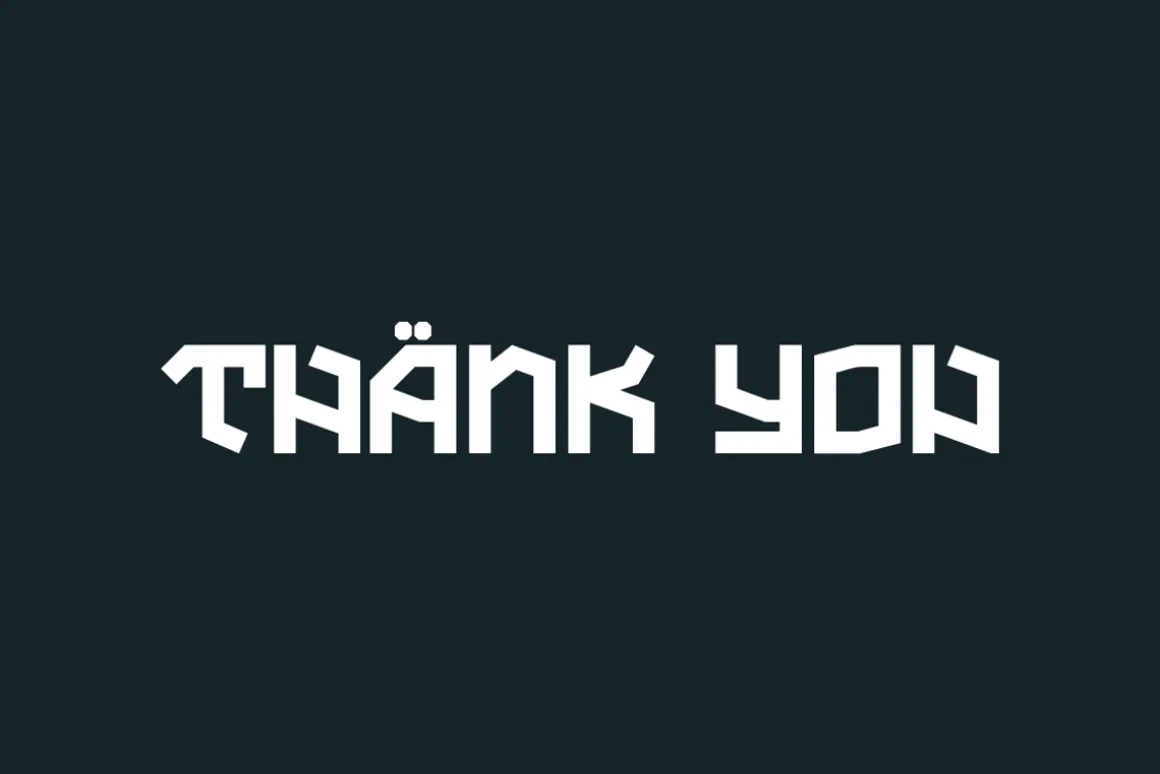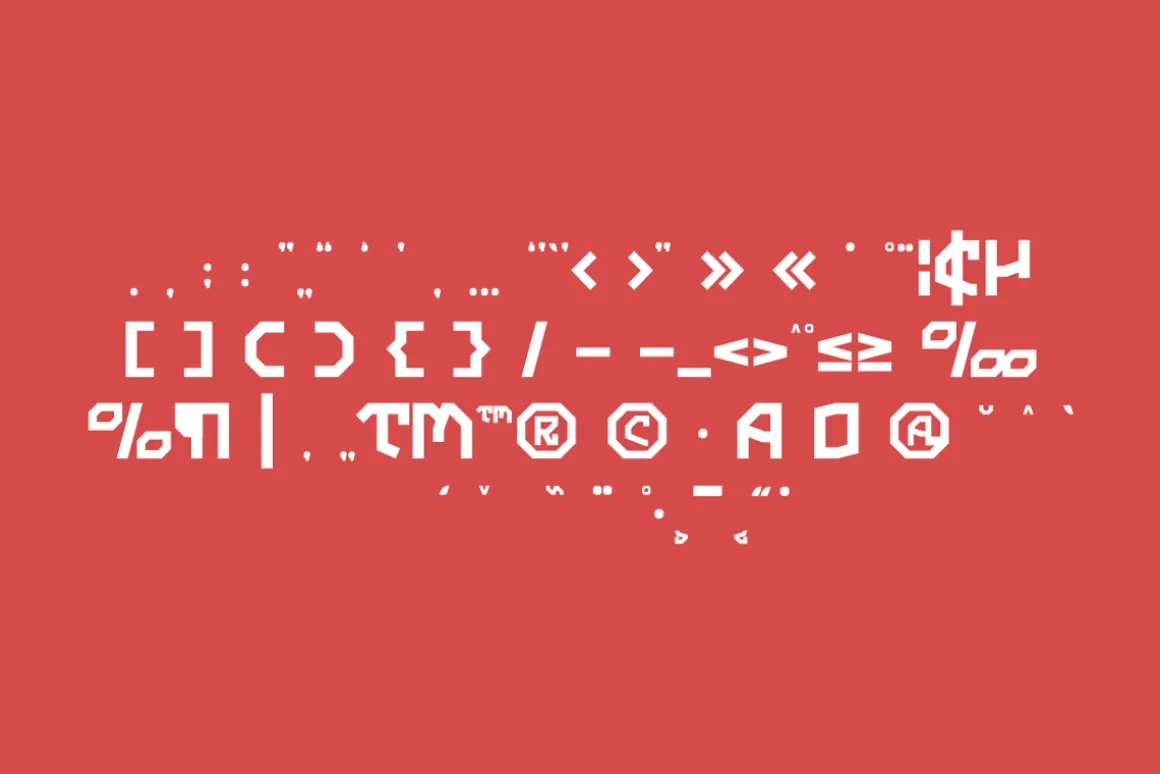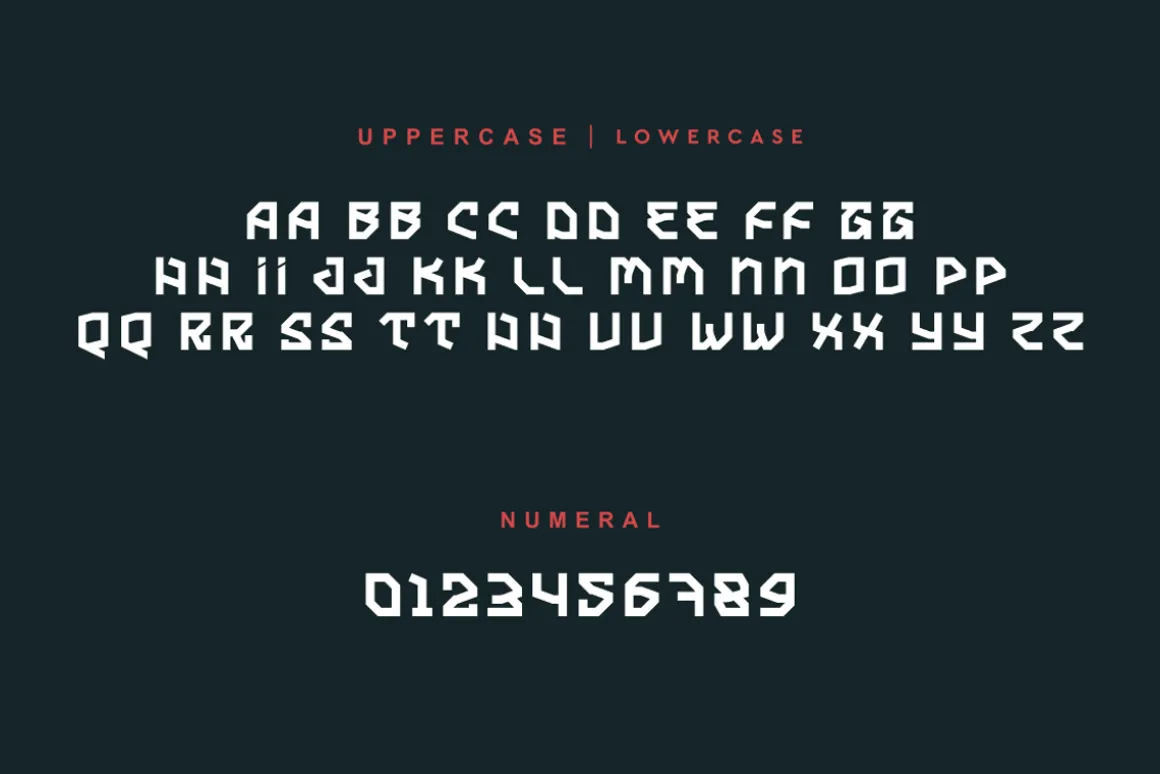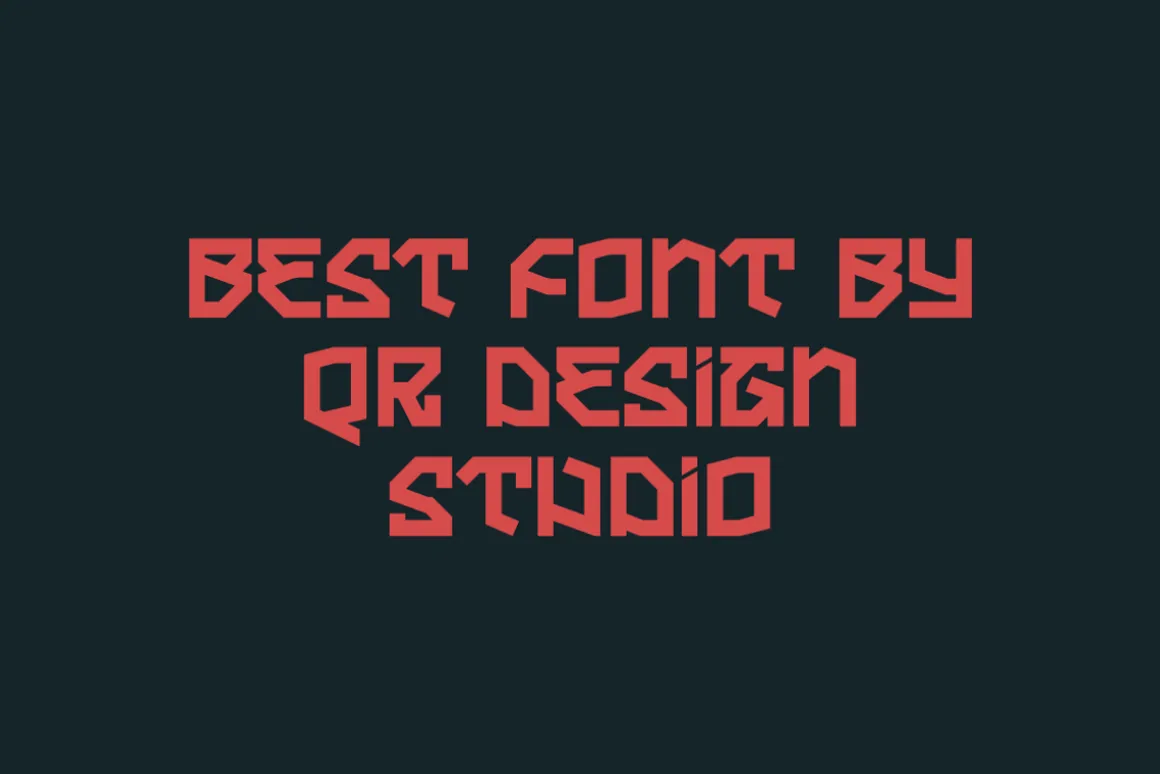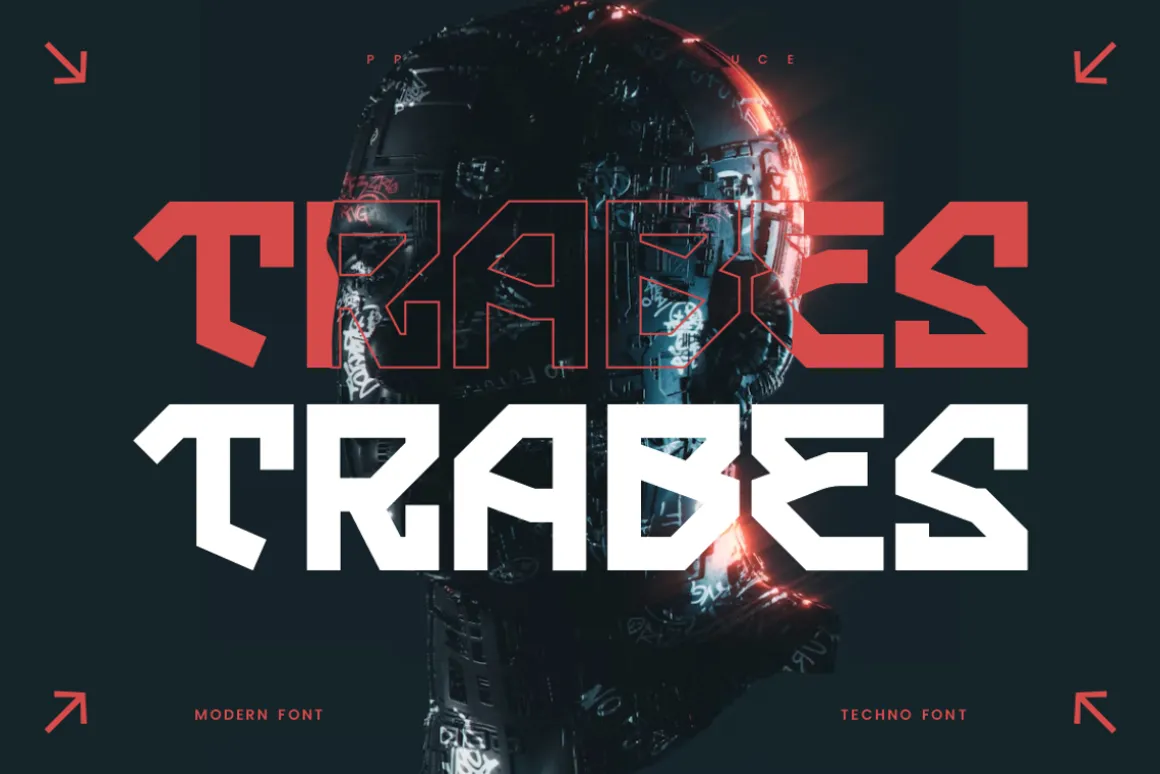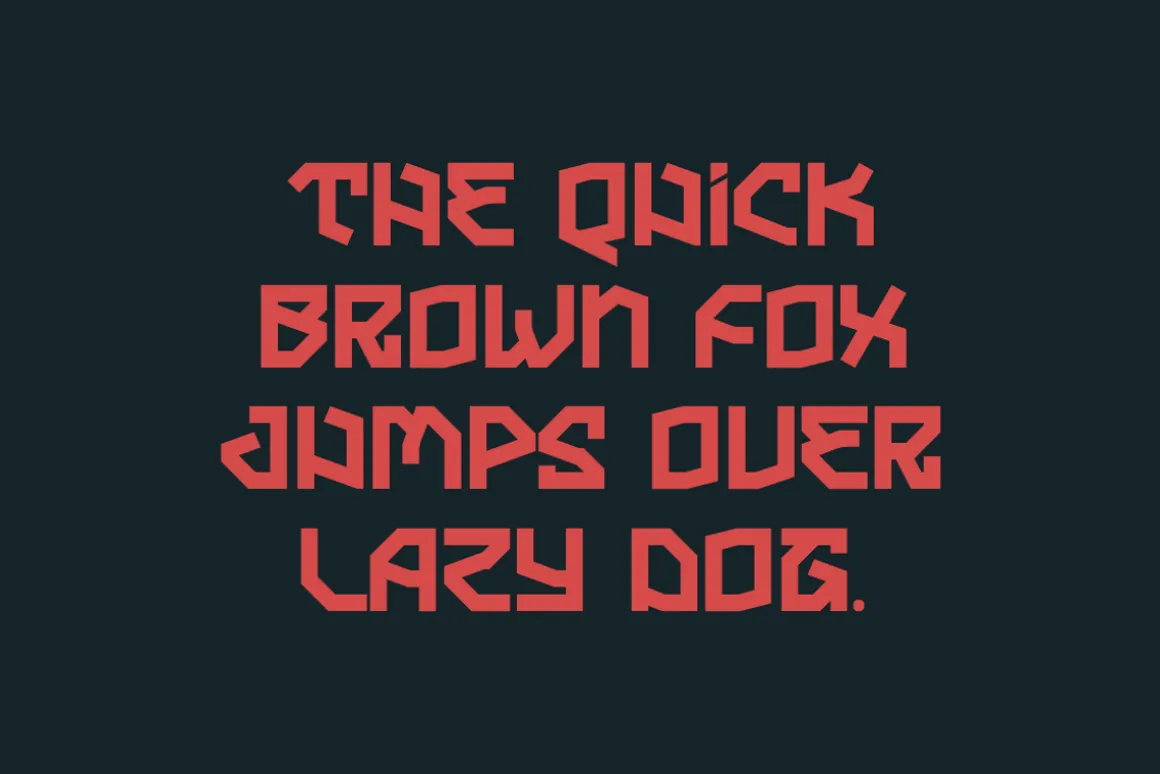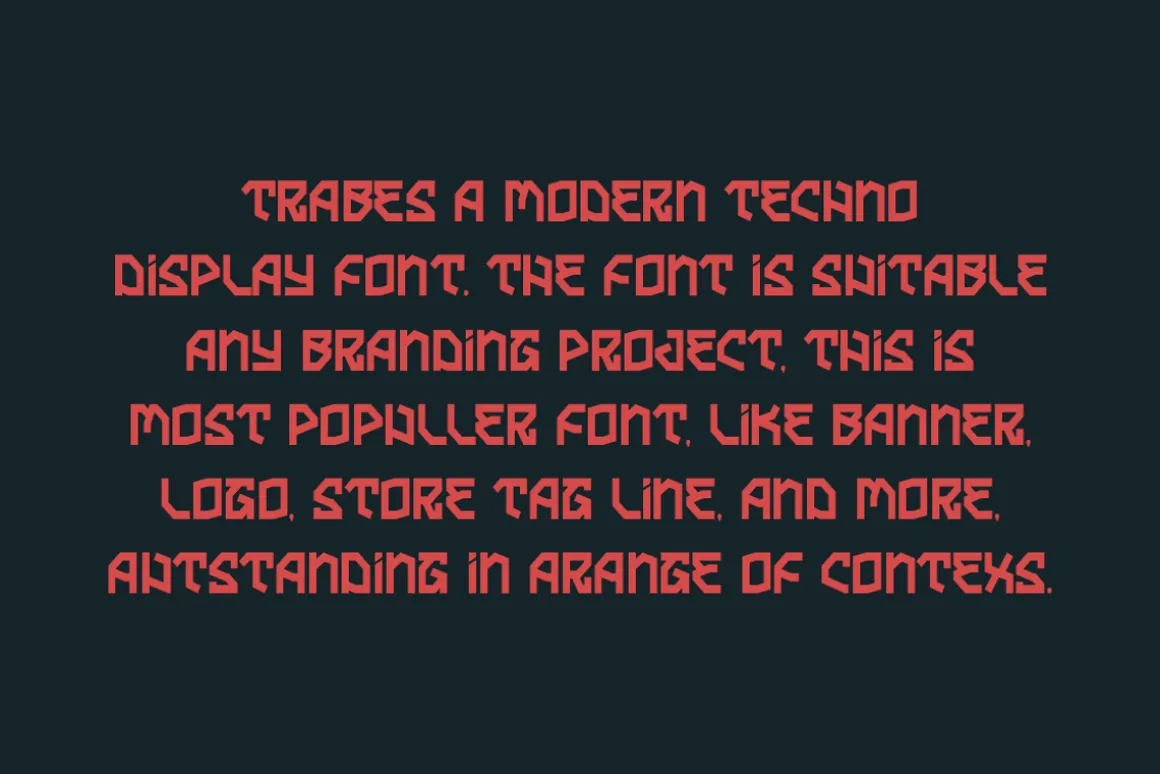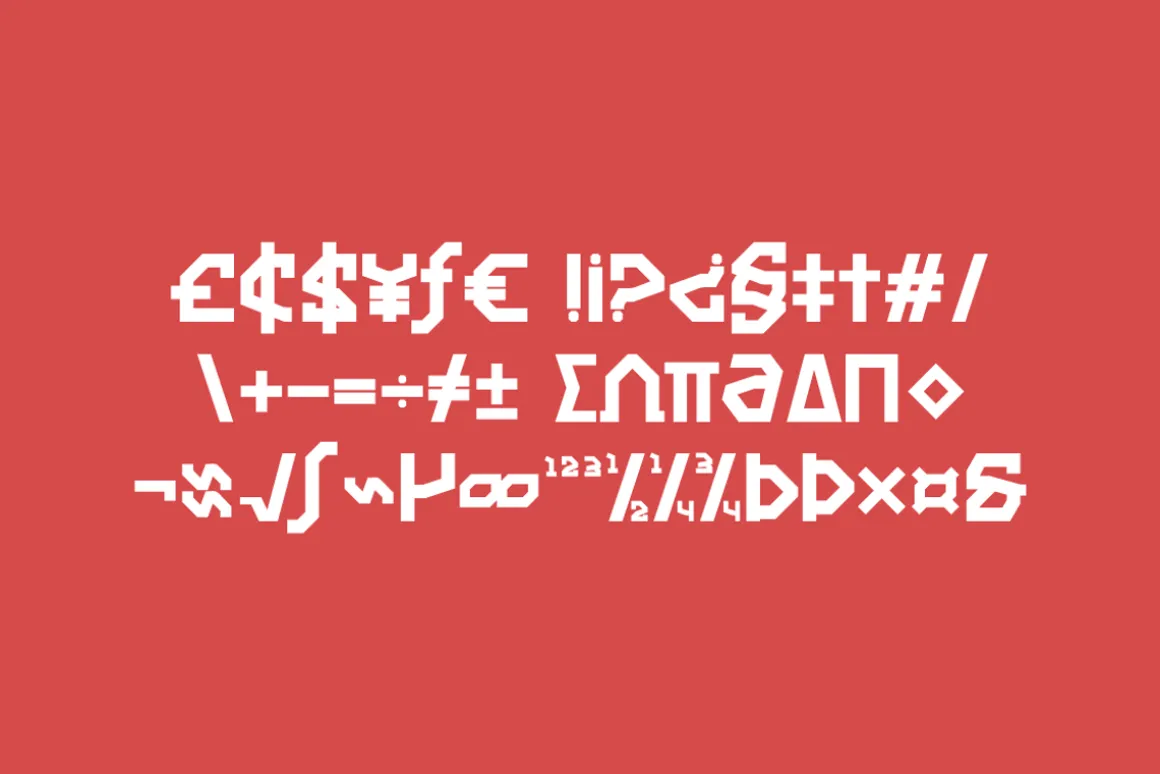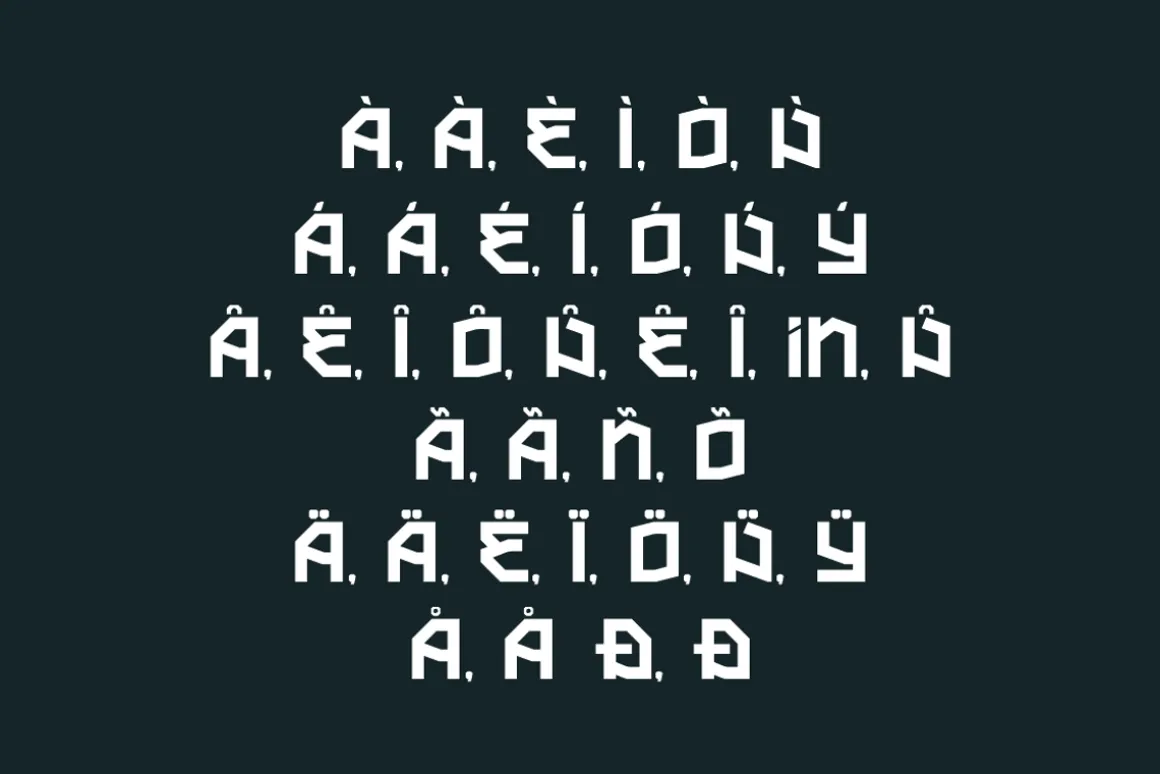
Trabes Font is a techno and authentic display font.The font is suitable for any branding project like poster, logo, sport, and many more.Outstanding in a wide range of contexts.